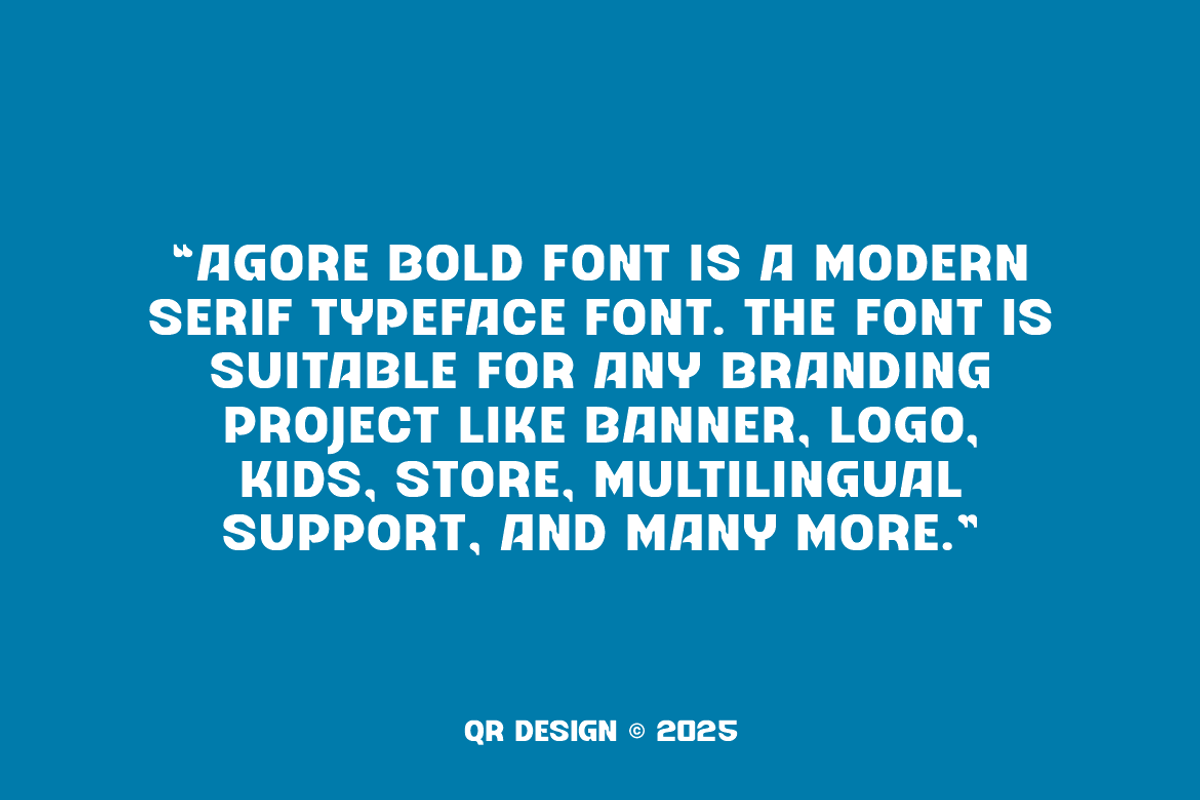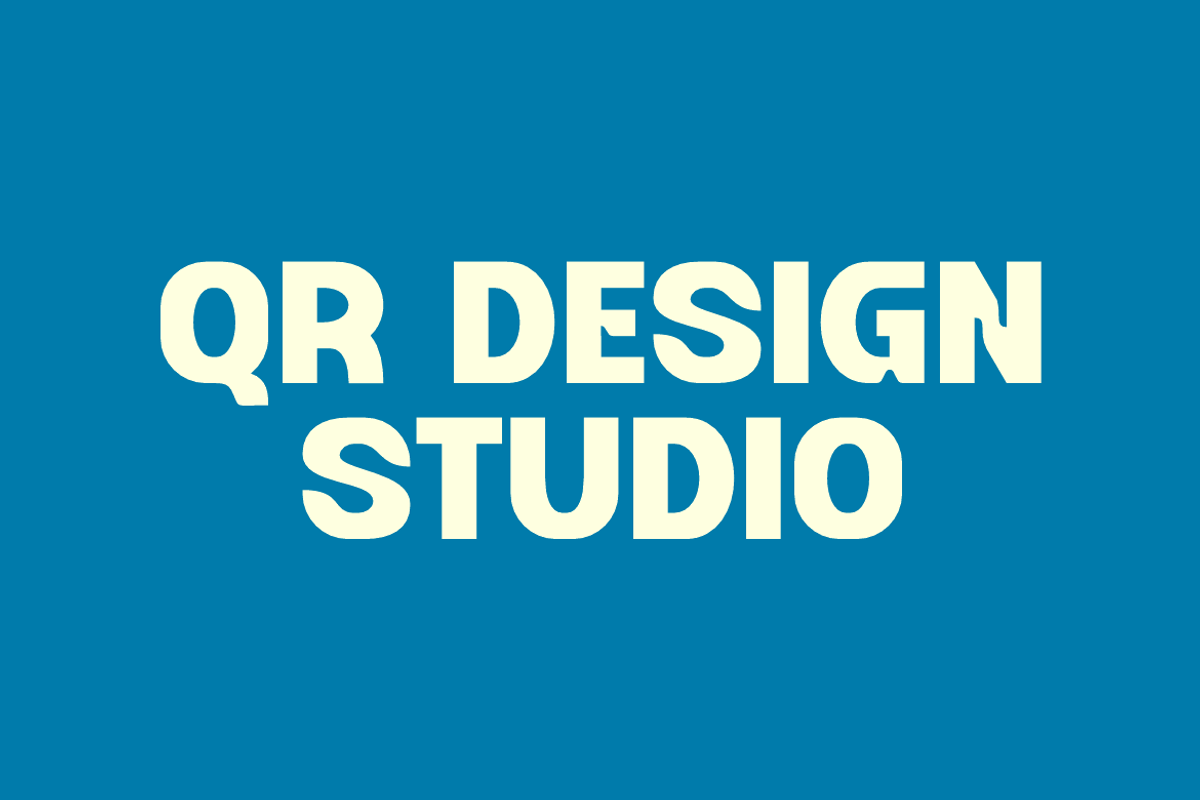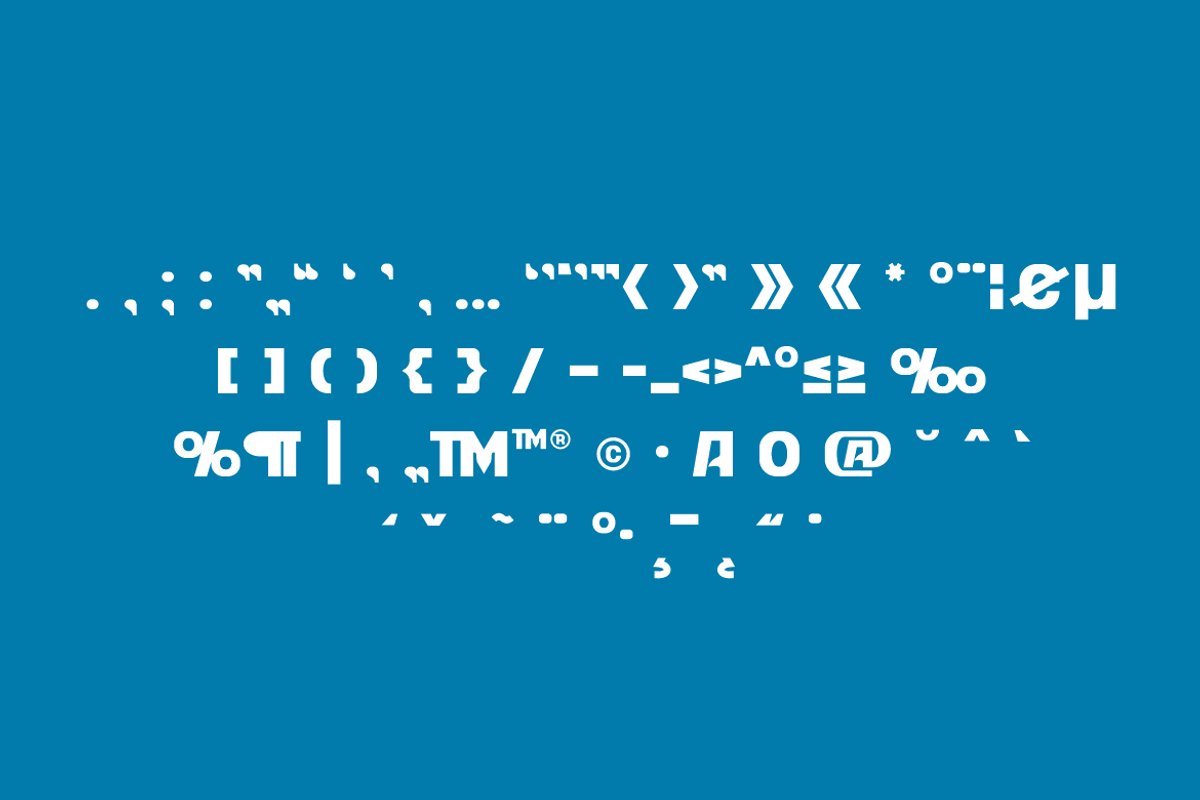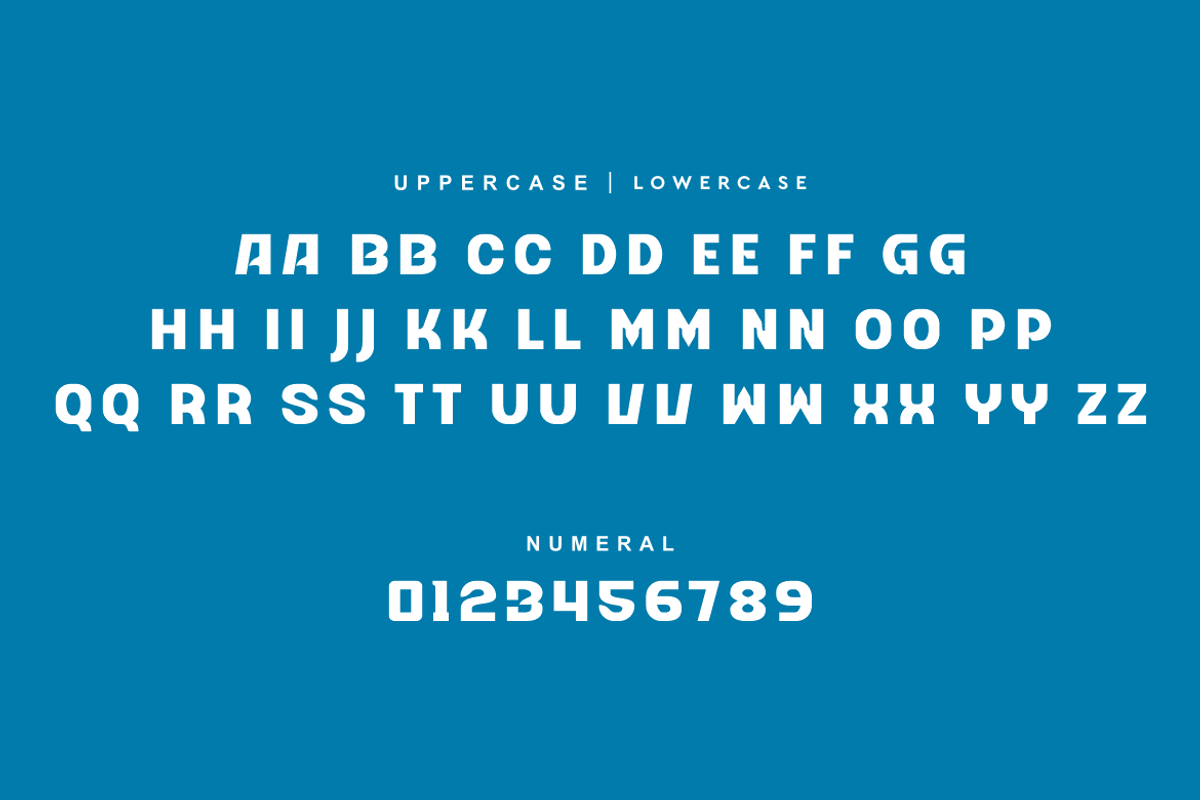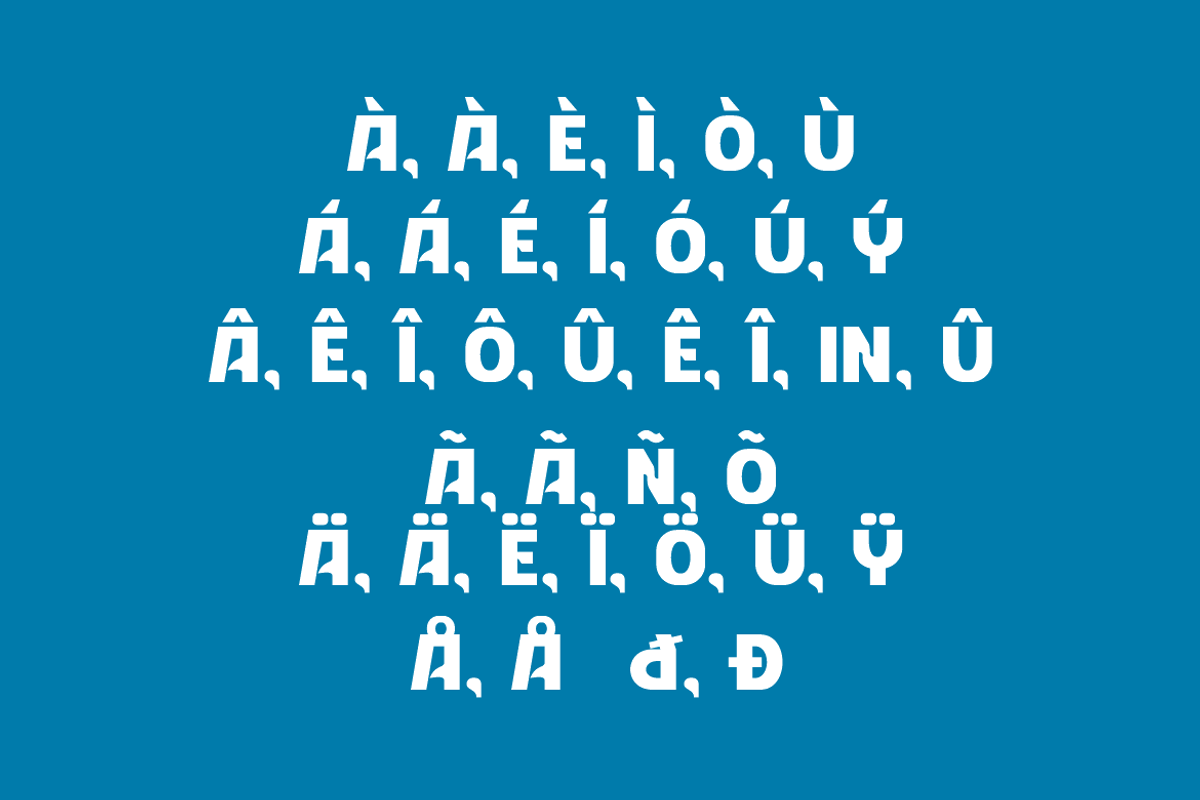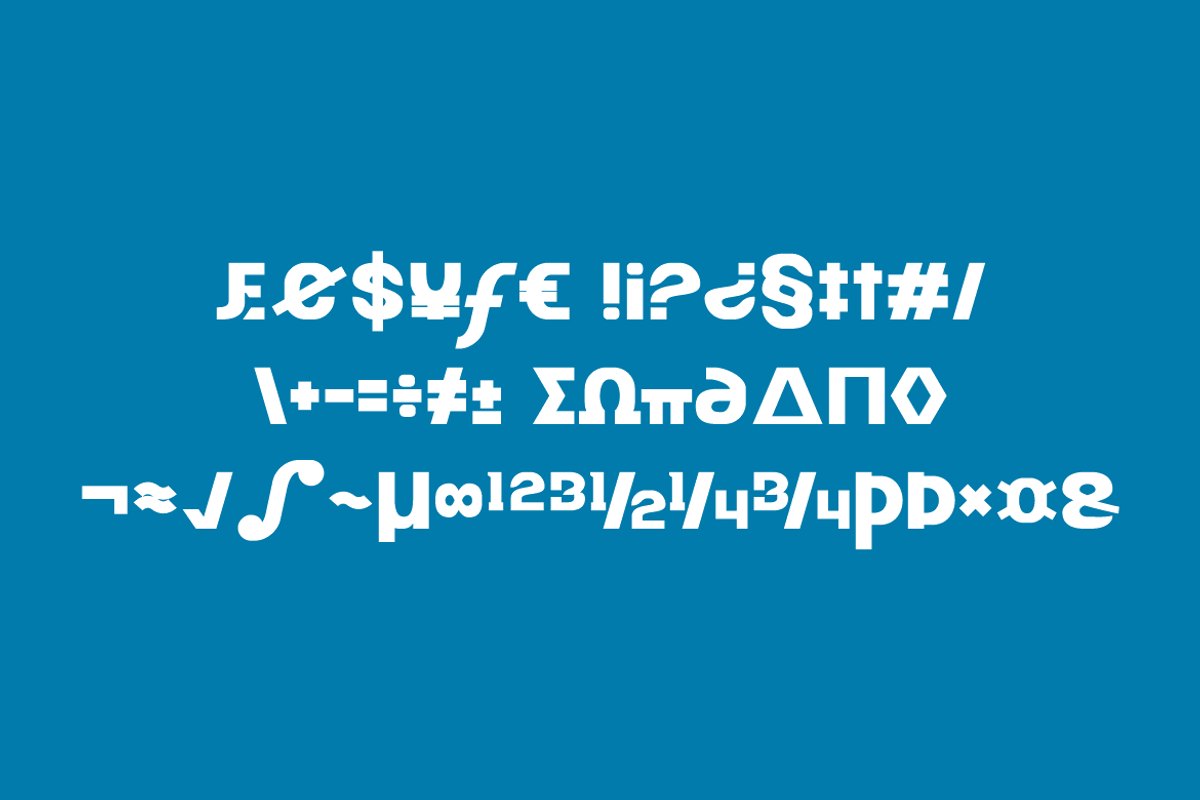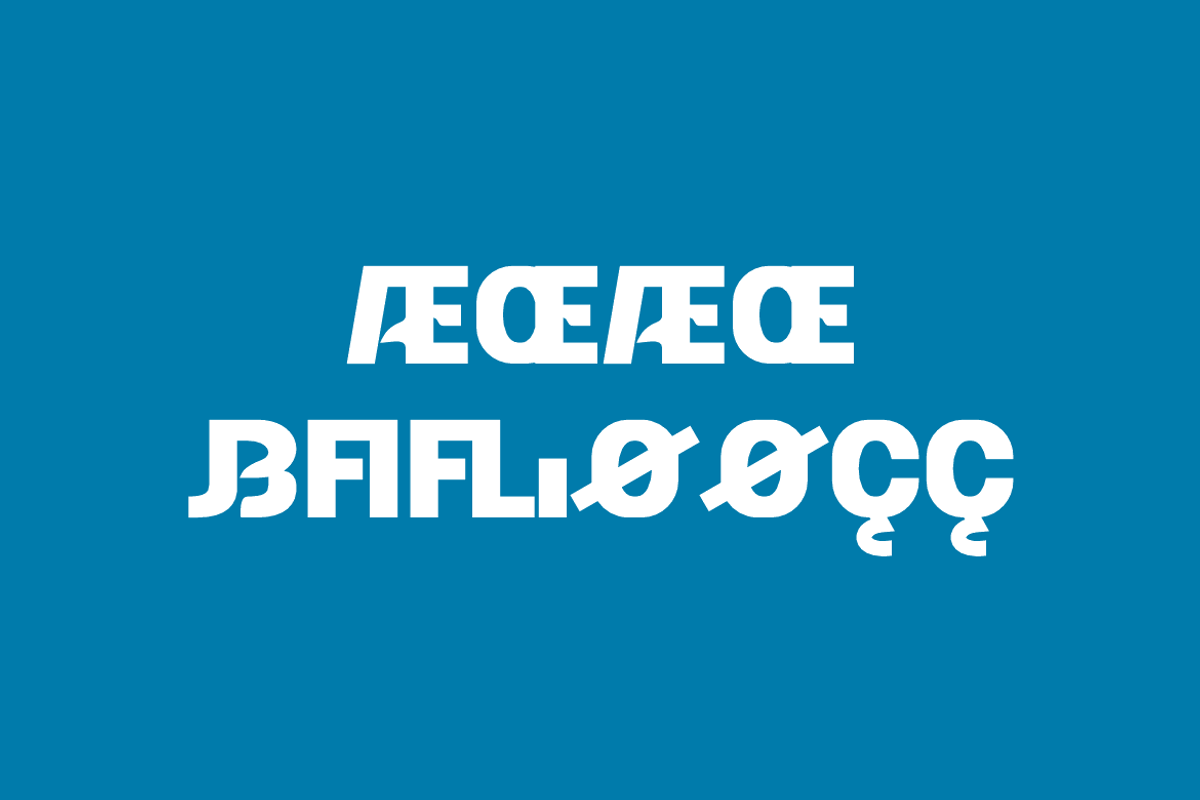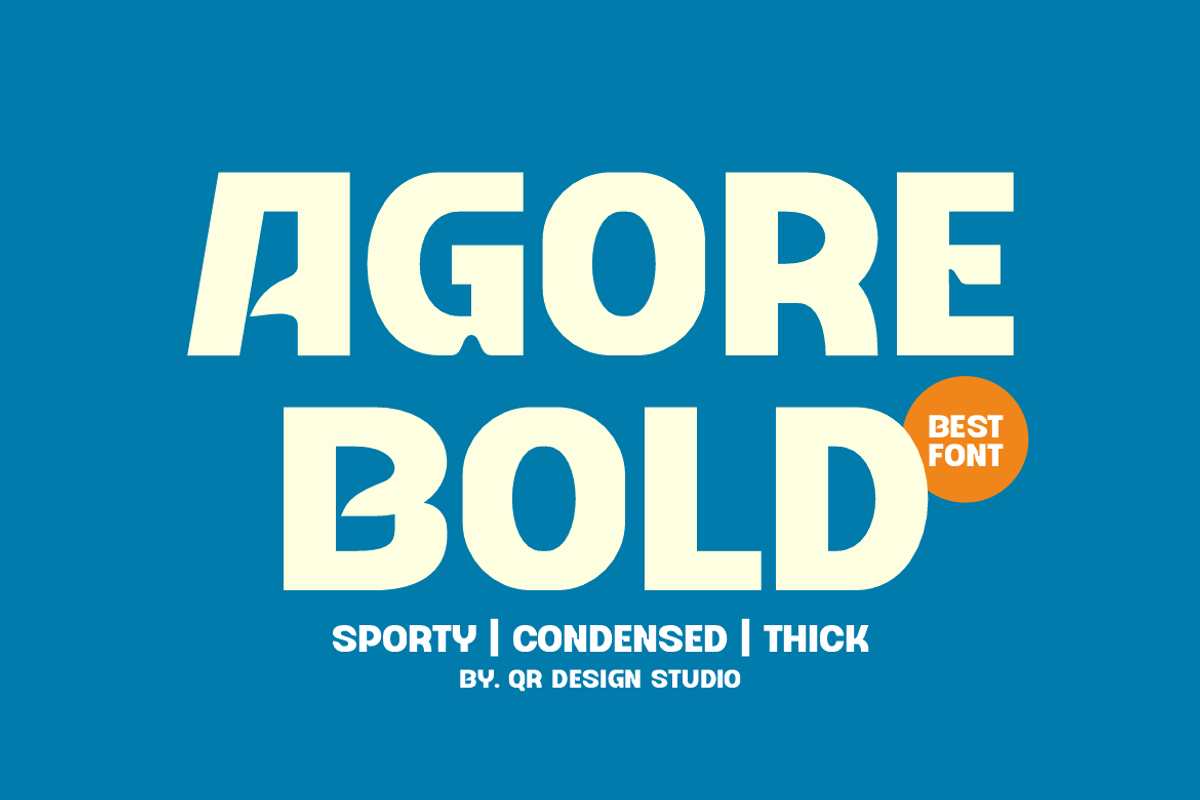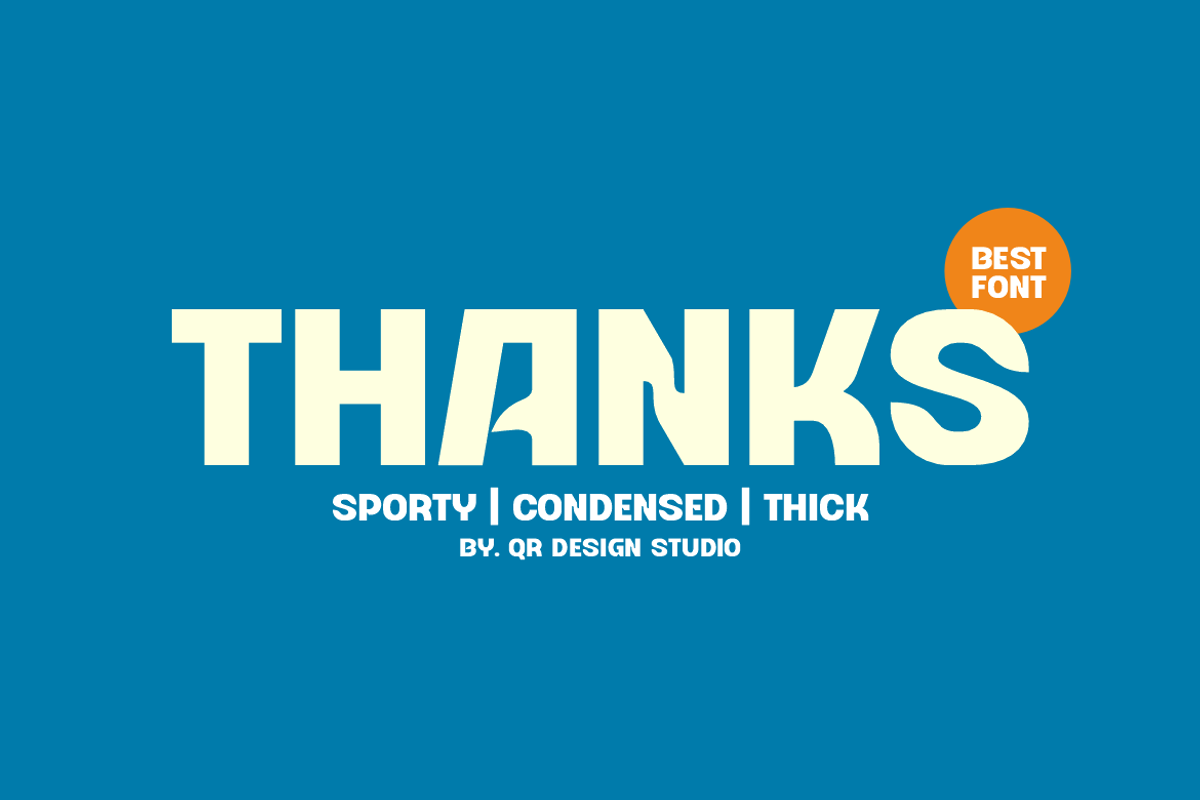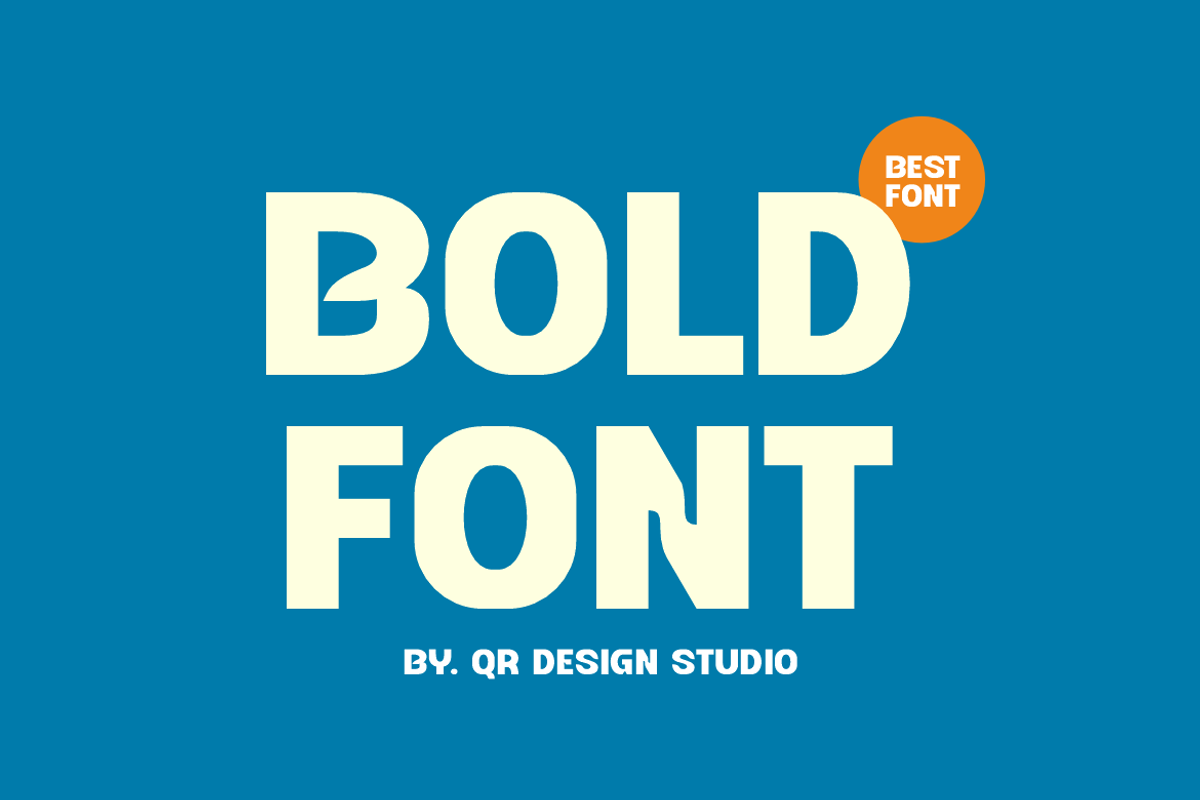
Agore Bold - Sporty Font
Agore Bold Font is a bold and authentic display font. The font is suitable for any branding project like poster, logo, sport, and many more. Outstanding in a wide range of contexts.